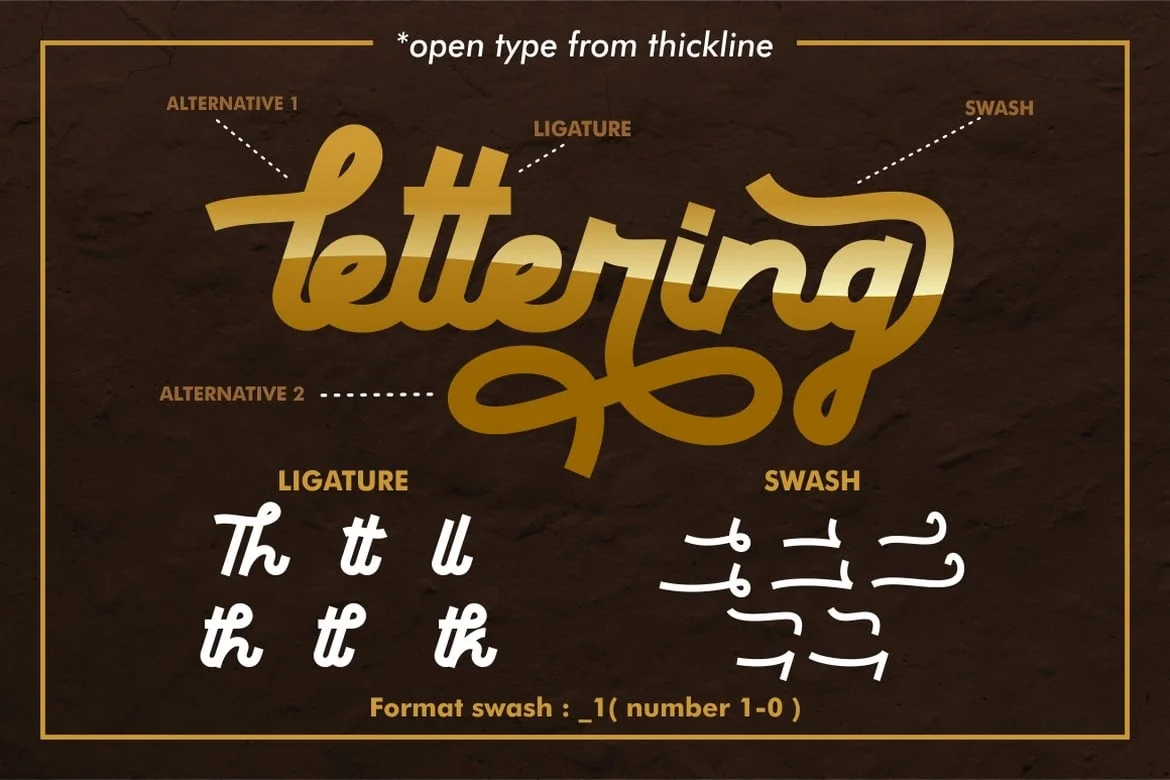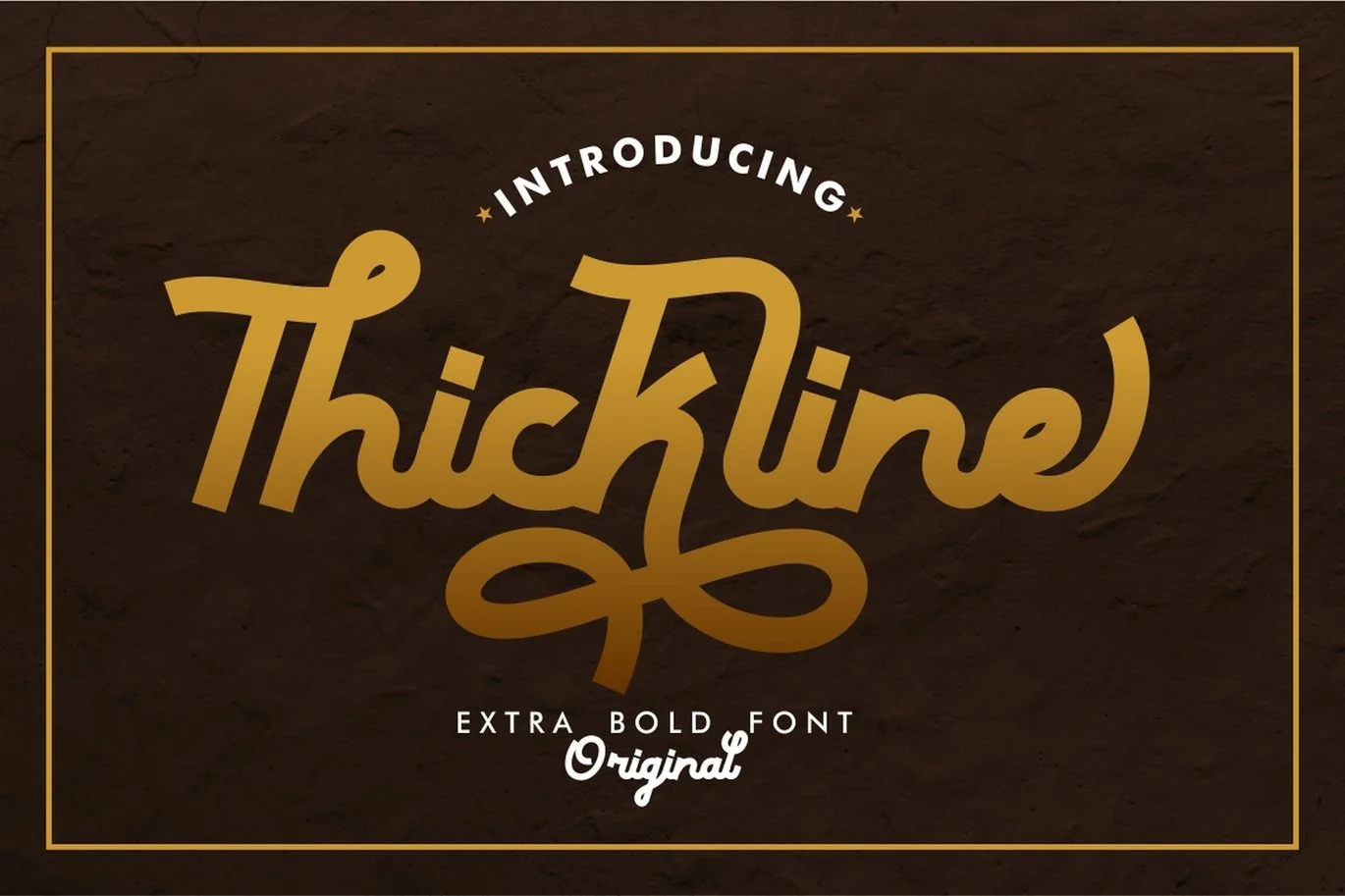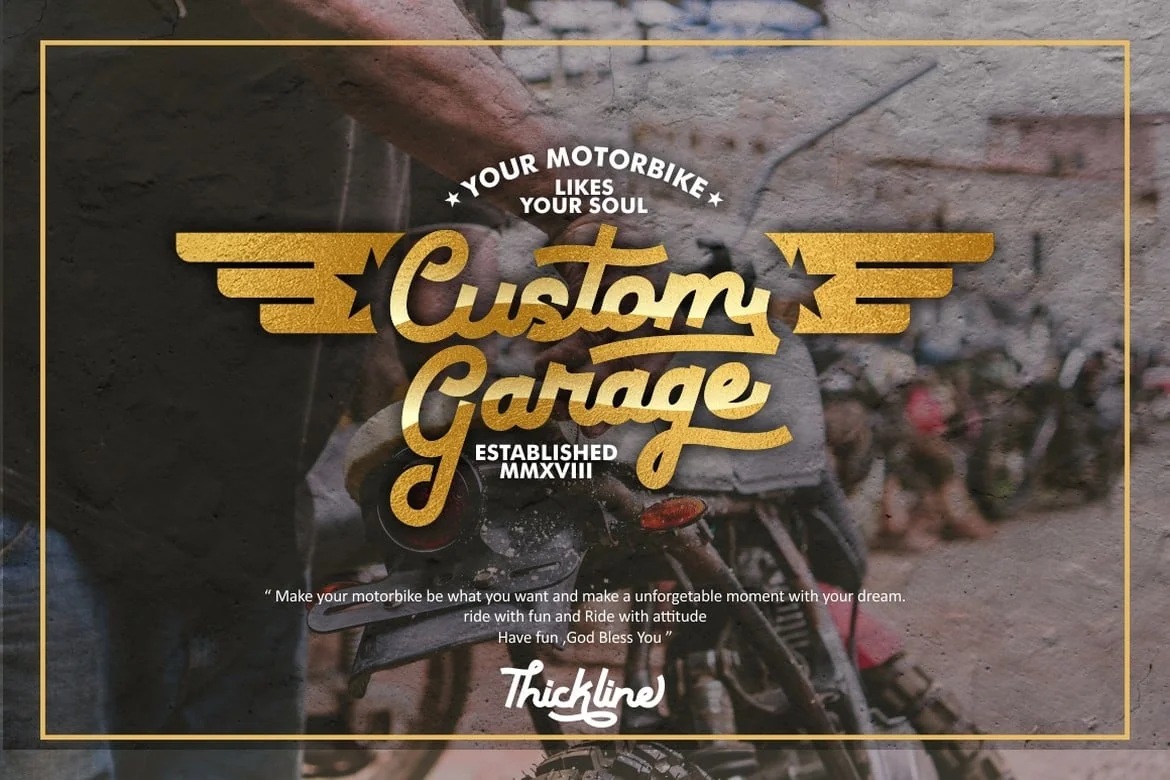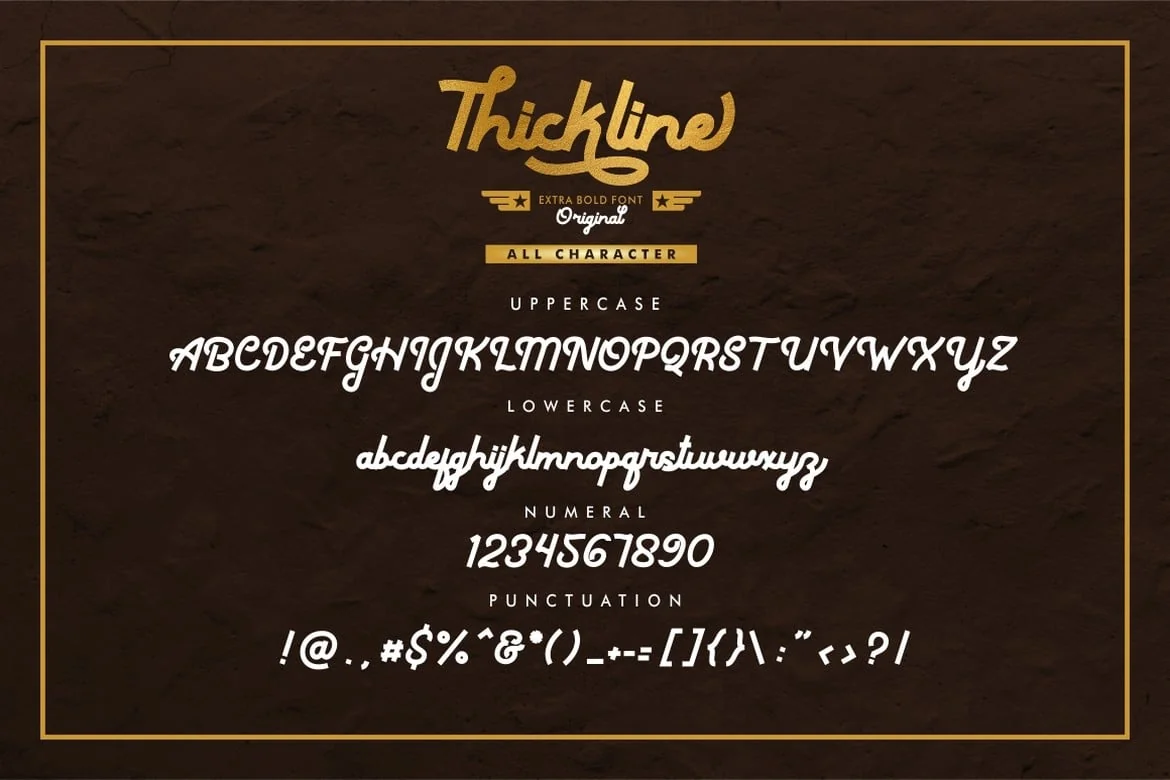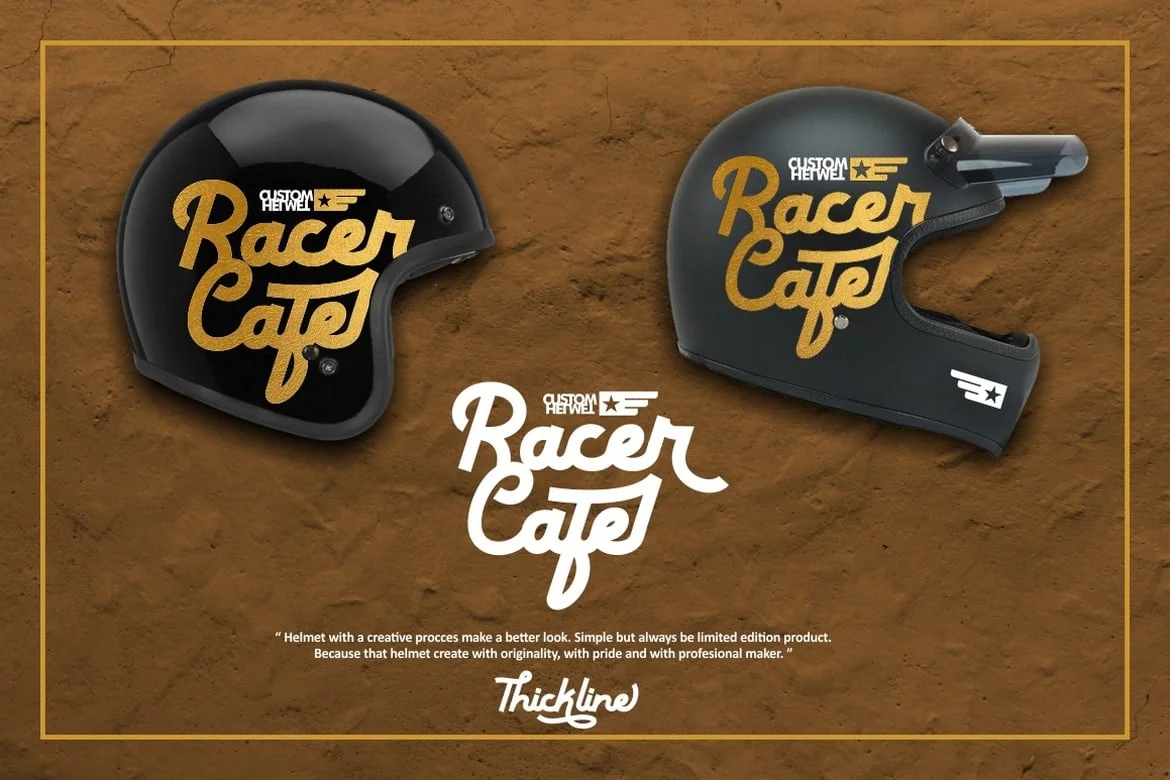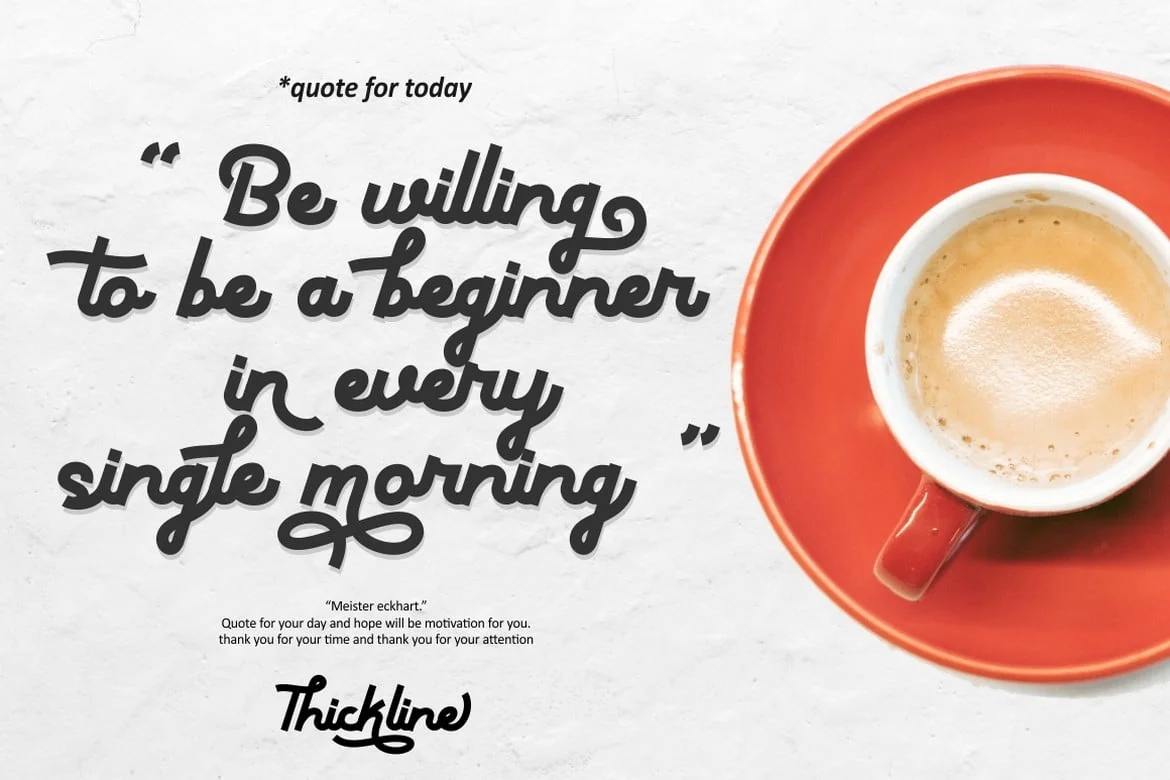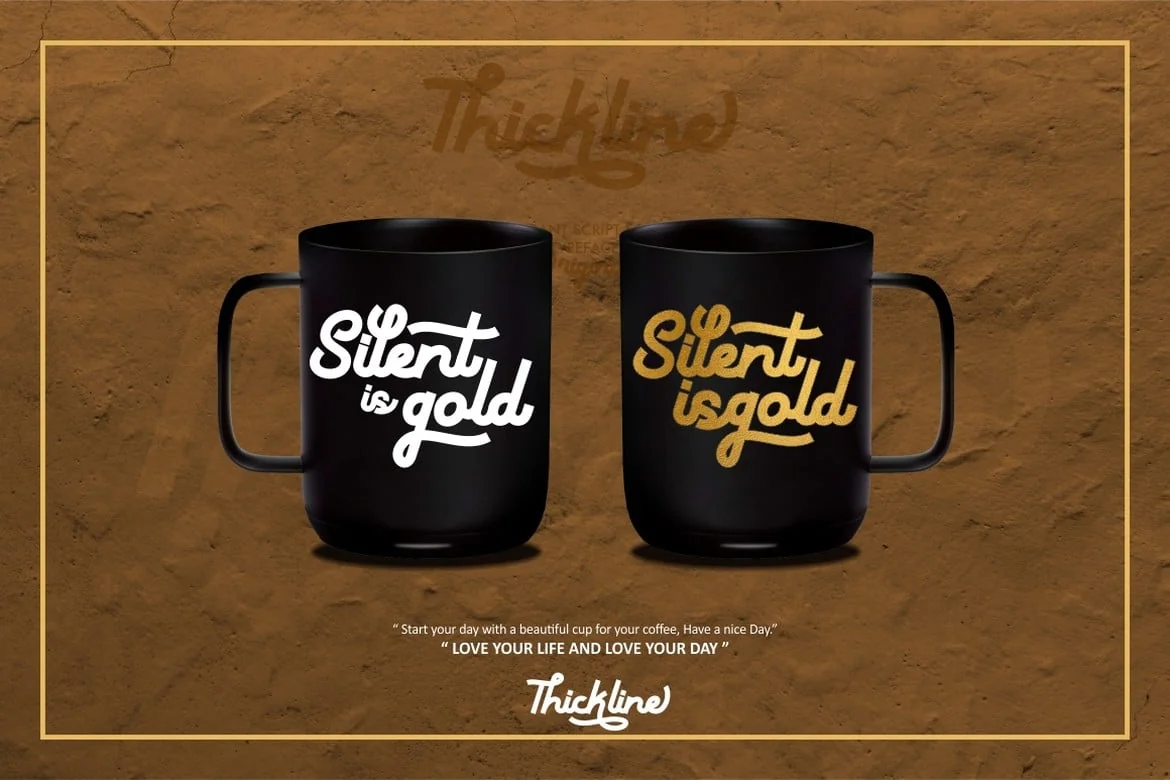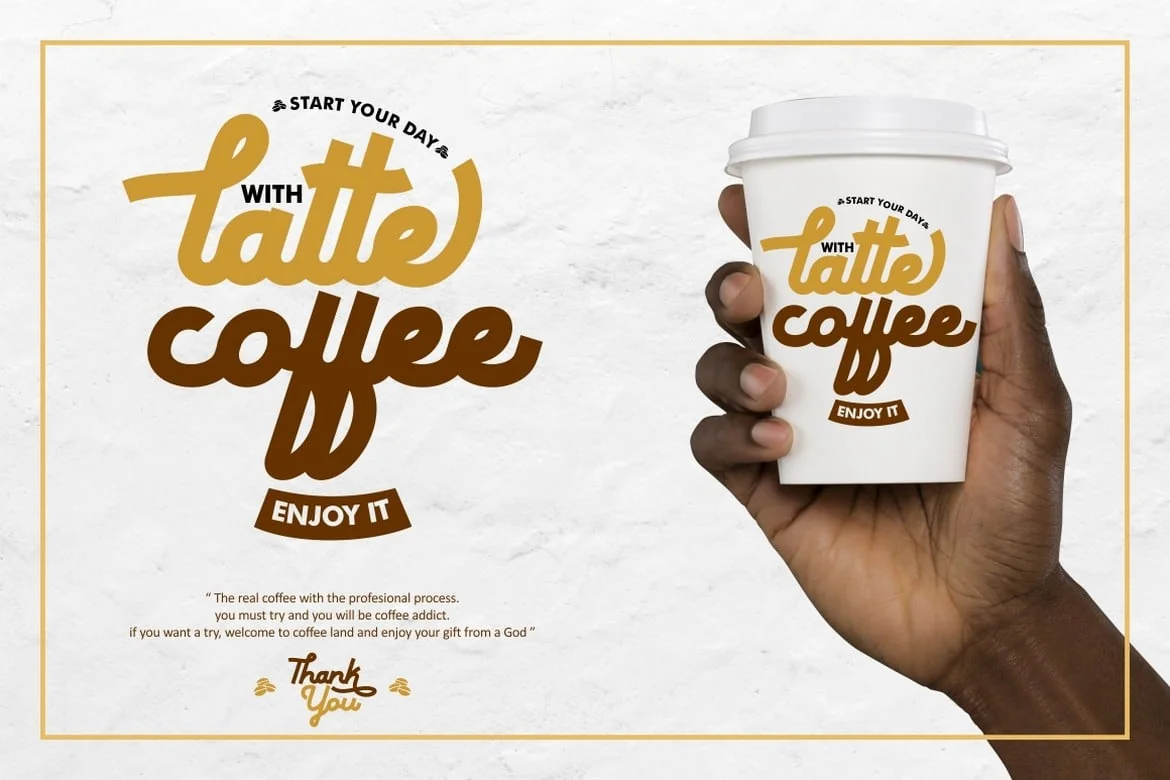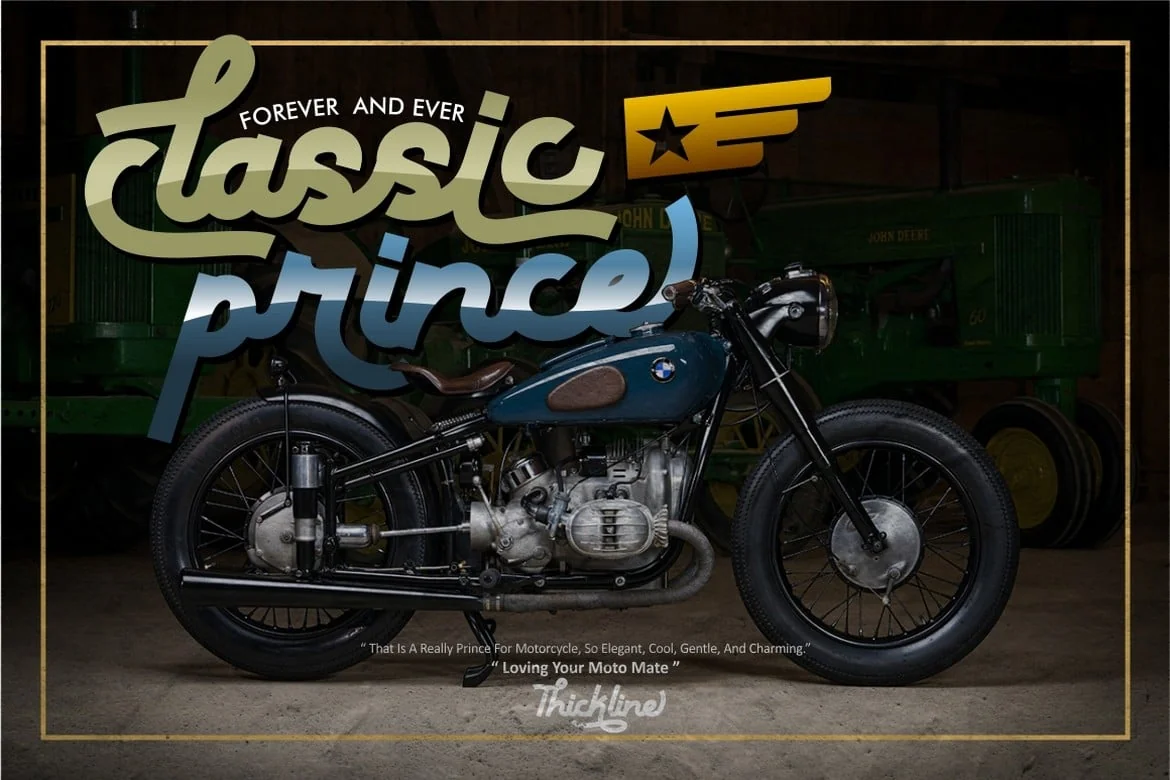
Thickline – Classic Bold Font
** Thickline **
Introducing, Thickline ! a classic bold monoline typeface.
Thickline is bold, strong, and classy.
You can use this font for making an awesome logo, branding, letterhead, invitations,quote, print, card clothing brand, vintage looks,and so much more!.
Come with open type feature with a lot of alternates, its help you to make great lettering.
This font is also support multi language.
- Number, Punctuation And Symbols
- Multilanguage Support.